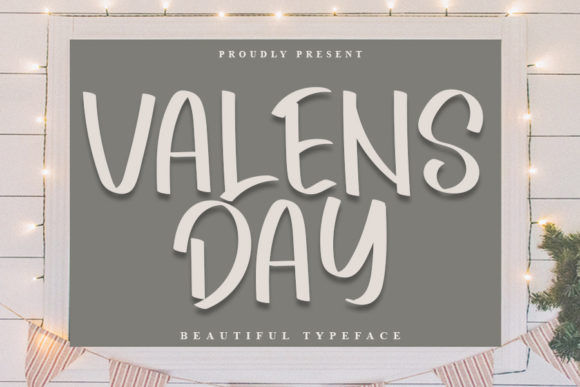
Valens Day Font
Introducing Valens Day Font, a modern masterpiece crafted by FreshTypeINK, a name synonymous with typographic innovation. This elegantly handwritten script font exudes a captivating charm that will transform your creative projects into visual masterpieces.
Valens Day isn't just a font; it's an experience that paints words with emotion and grace. Its delicate strokes dance across the page, evoking a sense of nostalgia and timeless appeal. Its flowing lines and carefully crafted curves create a symphony of harmony, inviting your readers to immerse themselves in the beauty of your message.
With Valens Day, you'll discover a world of endless possibilities. Its versatility makes it the perfect choice for a wide range of applications, from heartfelt wedding invitations to eye-catching logos. Whether you're a seasoned designer or just starting your creative journey, Valens Day is your perfect companion, guiding you towards stunning results with effortless ease.
Step into the world of Valens Day and let your imagination soar. Let the world witness the power of your words, adorned with the elegance and sophistication that only this remarkable font can provide.